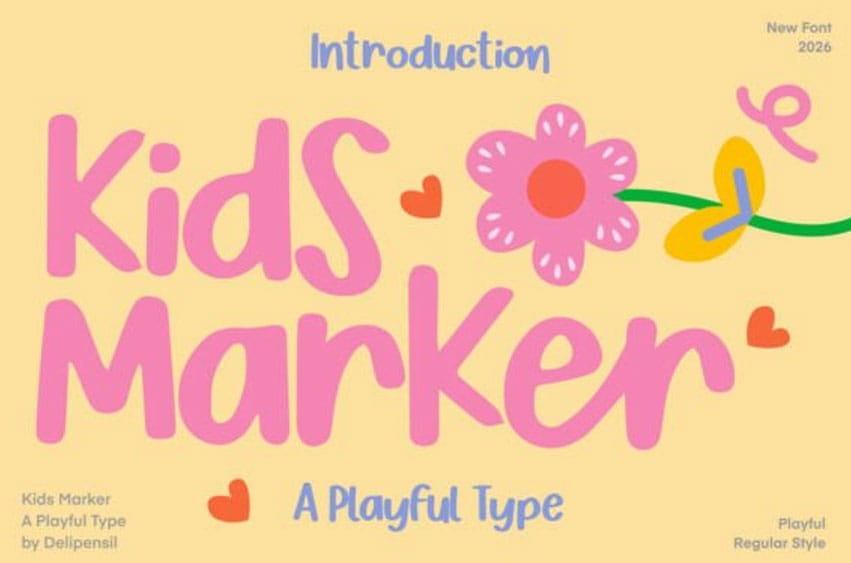
Kids Marker Font Color outside the lines with Kids Marker, a charming display font that perfectly mimics the bold, rounded strokes of a child’s favorite felt-tip pen. This typeface features soft, irregular letterforms with a “creative-playtime” soul, blending a bouncy baseline with friendly, organic proportions.
With its approachable weight and innocent rhythm, Kids Marker is the premier choice for independent nursery branding, preschool educational materials, boutique toy packaging, and engaging “family-moment” social media headers.